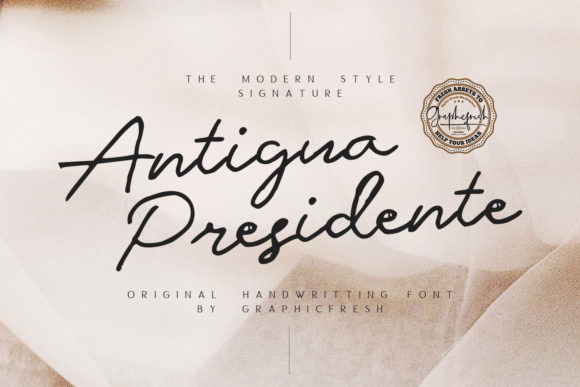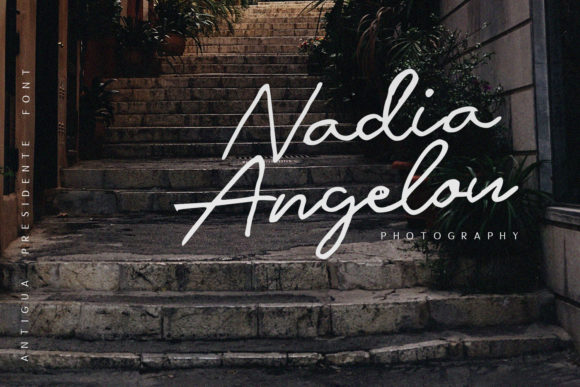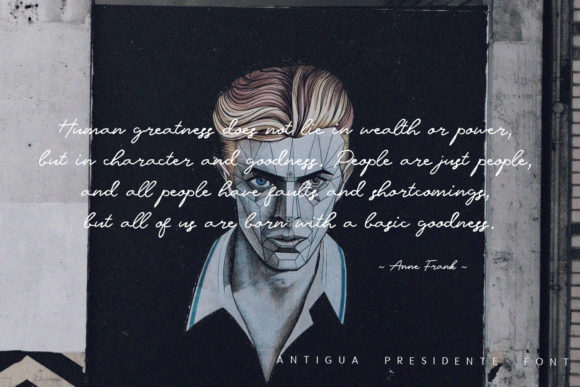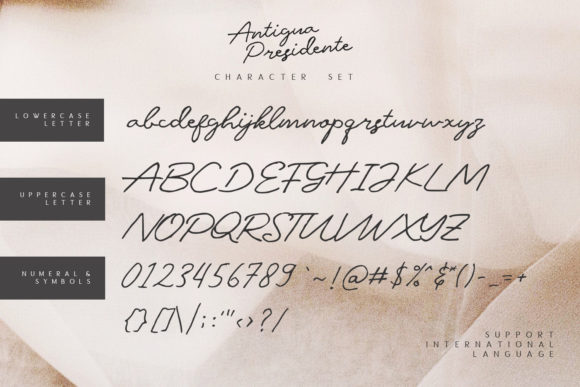
Antigua Presidente Font
About Antigua Presidente Font
Antigua Presidente is a lovely and joyful handwritten font with a lot of authentic charm. Get inspired by its delicate feel, and turn any design project into a stunner!